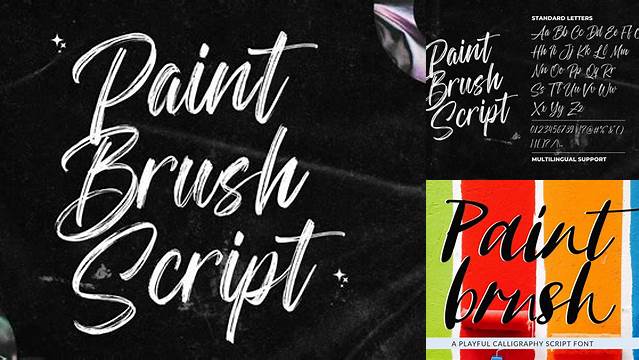
Are you looking to add a handmade touch to your designs? Do you love the look of calligraphy but don't have the time to practice? Well, guys, you're in luck! A paint brush script font is the perfect solution, and guess what? You can find them for free! In this article, we'll dive deep into the world of paint brush script fonts, exploring their versatility, where to find them, and how to use them effectively. So, let’s grab our digital brushes and start painting with words!
What is a Paint Brush Script Font?
Paint brush script fonts are digital typefaces designed to mimic the strokes and textures of a real paint brush. Unlike traditional fonts that have clean, uniform lines, these fonts boast a more organic, flowing appearance. Think of the uneven edges, the subtle variations in thickness, and the slight imperfections that give handwriting its charm. That's what paint brush fonts aim to capture. These fonts often feature a dynamic baseline, where letters seem to dance and connect fluidly, adding to the overall handcrafted feel. The strokes might appear textured, almost as if the ink or paint is still wet on the page. This texture is key to their appeal, lending a tactile quality that's hard to replicate with other font styles. The best paint brush script fonts also incorporate subtle nuances, such as variations in pressure and speed, which contribute to the illusion of authenticity. The beauty of paint brush script fonts lies in their ability to evoke emotion. They can be playful, romantic, edgy, or even elegant, depending on the specific style and the context in which they're used. This versatility makes them a valuable asset for designers working on a wide range of projects, from wedding invitations to branding materials. Moreover, these fonts can bridge the gap between digital design and traditional art forms, creating a unique visual language that resonates with audiences seeking authenticity and human connection. The imperfections and irregularities, far from being flaws, are actually the font's greatest strength. They tell a story, hinting at the hand that crafted the letters and adding a personal touch to any design. The best paint brush fonts will often include a variety of alternate characters, ligatures, and swashes, allowing designers to further customize their typography and create truly unique compositions. These extra glyphs can be used to add emphasis, connect words in a more natural way, or simply add a bit of flair. Ultimately, a paint brush script font is more than just a typeface; it's a tool for storytelling, a way to infuse personality into your designs, and a celebration of the handmade in a digital world. Whether you're creating a logo, designing a poster, or crafting a social media post, a paint brush script font can help you achieve a look that's both stylish and authentic.
Why Use a Paint Brush Script Font?
There are so many compelling reasons to incorporate a paint brush script font into your design projects. These fonts are incredibly versatile, capable of adding a touch of personality and charm to a wide range of applications. The primary reason designers gravitate towards paint brush fonts is their unique aesthetic. Unlike the clean, geometric lines of sans-serif fonts or the formal elegance of serif fonts, paint brush scripts offer a more organic and hand-drawn feel. This makes them ideal for projects that aim to evoke a sense of authenticity, creativity, or informality. Think about a logo for a small, artisanal business, a wedding invitation with a personal touch, or a social media graphic that needs to stand out from the crowd. Paint brush fonts can instantly inject warmth and character into these designs. Another significant advantage of using paint brush script fonts is their ability to create visual interest. The varying stroke weights, textured edges, and flowing letterforms naturally draw the eye and add depth to the text. This can be particularly useful in headlines, titles, and other prominent text elements where you want to make a strong impact. The dynamic and unpredictable nature of the brushstrokes creates a sense of movement and energy, preventing the design from feeling static or dull. Furthermore, paint brush script fonts can help you establish a specific mood or tone in your design. A bold, rough-edged font might be perfect for a rock band's promotional materials, while a delicate, flowing script could be ideal for a beauty brand's packaging. The versatility of these fonts allows you to tailor your typography to the message you want to convey, ensuring that your design speaks volumes. The imperfections inherent in paint brush fonts are also a major part of their appeal. In a world dominated by digital precision, these fonts offer a refreshing contrast, celebrating the beauty of the handmade and the human touch. This can be particularly effective in projects that aim to connect with audiences on an emotional level, such as branding for small businesses or personal projects. The slightly uneven lines and textured strokes create a sense of authenticity and warmth, making the design feel more approachable and relatable. Of course, like any design element, paint brush script fonts should be used judiciously. Overusing them can lead to visual clutter and dilute their impact. It's important to consider the overall context of your design and choose a font that complements the other elements. However, when used effectively, paint brush script fonts can be a powerful tool for enhancing your designs and creating a memorable visual experience. They offer a unique blend of style and personality that can help your projects stand out and connect with your audience on a deeper level.
Where to Find Free Paint Brush Script Fonts
Okay, so you're sold on the idea of using a paint brush script font, but where can you find these gems without breaking the bank? The internet is brimming with resources offering free fonts, but it's crucial to tread carefully. Not all free fonts are created equal, and you need to ensure you're using fonts that are both high-quality and licensed for your intended use. One of the best places to start your search is Google Fonts. This is a treasure trove of free, open-source fonts, including a decent selection of script fonts that mimic a paint brush effect. The advantage of using Google Fonts is that they're web-friendly, meaning they're optimized for use on websites and load quickly. Plus, they come with clear licensing information, so you can be sure you're using them legally. Another fantastic resource is Font Squirrel. This website curates a collection of free fonts that are licensed for commercial use, which is a huge bonus if you're planning to use the font in a project for a client or for your business. Font Squirrel has a robust filtering system that allows you to narrow your search by style, weight, and other criteria, making it easy to find exactly what you're looking for. Websites like DaFont and Creative Fabrica (Freebies section) are also popular choices for finding free fonts. They host a vast library of fonts, but it's important to pay close attention to the licensing information for each font. Some fonts may be free for personal use only, while others may allow commercial use. Always double-check the license before using a font in a project. Don't forget about individual font designers and foundries who often offer free fonts as a way to promote their work. Following font designers on social media or subscribing to their newsletters can be a great way to discover new free fonts and support independent creators. Websites like Behance and Dribbble are also excellent platforms for finding font designers and their work. When downloading free fonts, it's essential to be cautious and download from reputable sources to avoid malware or viruses. Always scan downloaded files with an antivirus program before opening them. Also, remember to organize your font library effectively. Creating folders and using a font management tool can help you keep track of your fonts and prevent your system from becoming cluttered. Finding the perfect free paint brush script font may take some time and effort, but the results are well worth it. With a little research and careful selection, you can add a touch of handmade charm and personality to your designs without spending a dime.
How to Use Paint Brush Script Fonts Effectively
So, you've found the perfect paint brush script font – congrats! But simply downloading and installing it isn't enough. To truly make the most of these expressive typefaces, you need to understand how to use them effectively. It’s important to remember that paint brush script fonts, with their inherent flair and personality, are best used sparingly. They shine when used for headlines, titles, logos, or short bursts of text where their unique character can grab attention. Overusing them in large blocks of body text can quickly become overwhelming and difficult to read. Imagine a beautiful, ornate frame around a painting – it enhances the artwork but doesn't overshadow it. Think of your paint brush script font in the same way. When choosing a paint brush script font, consider the overall tone and style of your project. Is it playful and whimsical? Elegant and romantic? Edgy and bold? There are countless variations within the paint brush script category, from delicate, flowing scripts to thick, textured brushstrokes. Selecting a font that aligns with your project's aesthetic is crucial for creating a cohesive and impactful design. For instance, a rough, uneven brush script might be perfect for a vintage-inspired poster, while a smooth, calligraphic script could be ideal for a wedding invitation. Pairing your paint brush script font with a more neutral typeface is a key strategy for maintaining readability and visual balance. A clean sans-serif or a classic serif font can provide a strong foundation for your design, allowing the script font to stand out without overpowering the overall composition. Think of it as a conversation – the script font is the expressive speaker, while the neutral font provides clarity and context. In terms of font size and spacing, it’s important to give your script font room to breathe. Avoid using it in very small sizes, as the intricate details can become lost and the text may become illegible. Increase the letter spacing and line height slightly to prevent the characters from crowding each other and ensure a comfortable reading experience. This extra space will also help to emphasize the unique shapes and textures of the font. Experiment with different weights and styles within the font family, if available. Some paint brush script fonts come with various weights (e.g., light, regular, bold) or stylistic alternates (e.g., swashes, ligatures). These variations can add depth and visual interest to your design, allowing you to create a more dynamic and customized look. However, be mindful not to overdo it. Too many variations can create a chaotic and inconsistent appearance. Remember, the goal is to enhance your message, not distract from it. Finally, always test your font choices across different mediums and devices. How does the font look on a website versus a printed poster? Is it legible on a mobile screen? These are important considerations to ensure that your design translates effectively across various platforms. By following these tips, you can harness the power of paint brush script fonts to create stunning designs that are both visually appealing and highly effective.
Examples of Paint Brush Script Fonts
To truly appreciate the diversity and beauty of paint brush script fonts, let's take a look at some specific examples. This will give you a better understanding of the range of styles available and how they can be used in different design contexts. One popular example is "Mochafloat," a playful and energetic script font that mimics the look of quick, expressive brushstrokes. Its slightly irregular edges and bouncy baseline give it a casual and friendly feel, making it ideal for projects that need a touch of whimsy. Think of using it for children's book covers, social media graphics, or even a quirky logo for a coffee shop. On the other end of the spectrum, we have fonts like "Stay Classy," which exudes elegance and sophistication. With its flowing curves, delicate hairlines, and graceful swashes, it evokes the art of calligraphy and lends a touch of refinement to any design. This type of font is perfect for wedding invitations, branding for luxury products, or elegant website headers. For a more rustic and handmade vibe, consider fonts like "Wild Youth." This bold and textured script font features rough edges, thick brushstrokes, and a slightly uneven baseline, creating a sense of authenticity and rugged charm. It's a great choice for projects that need a vintage or outdoorsy feel, such as posters for music festivals, branding for craft breweries, or packaging for artisanal goods. Another interesting example is "Salt & Spices," which combines the fluidity of a script font with a touch of grunge and edginess. Its slightly distressed texture and bold strokes give it a unique personality that's both stylish and raw. This font could be used for anything from t-shirt designs to album covers to website headers for creative agencies. The font "Hello Sunshine" is a cheerful and vibrant option that's perfect for adding a touch of optimism to your designs. Its rounded letterforms, playful swashes, and sunny disposition make it ideal for projects that need a positive and uplifting feel, such as greeting cards, social media posts, or website banners. It's important to note that each of these fonts has its own unique personality and should be used in contexts that complement its style. While "Stay Classy" might be perfect for a high-end fashion brand, it wouldn't be the best choice for a children's play center. Similarly, "Wild Youth" might be a great fit for a camping gear company but would feel out of place on a formal invitation. By exploring different examples of paint brush script fonts, you can develop a better understanding of their versatility and learn how to choose the right font for your specific needs. Remember to consider the overall tone and message of your project, and don't be afraid to experiment with different fonts until you find the perfect match.
Paint brush script fonts are a fantastic tool for adding personality, warmth, and a handmade touch to your designs. Whether you're creating a logo, designing a website, or crafting invitations, these fonts can help you make a statement. And with so many free options available, there's no reason not to give them a try. So, go ahead, guys, download a few, experiment, and unleash your creativity! Remember to always check the licensing before using a font in a commercial project, and have fun exploring the wonderful world of paint brush script fonts.